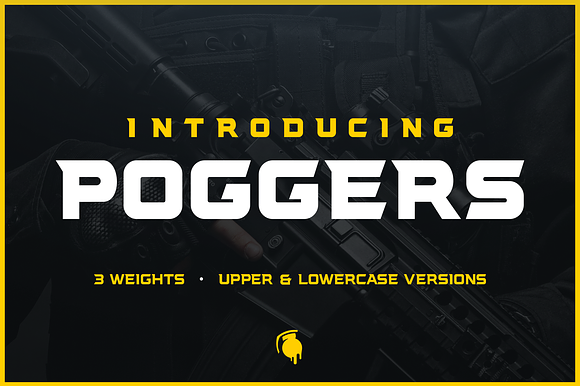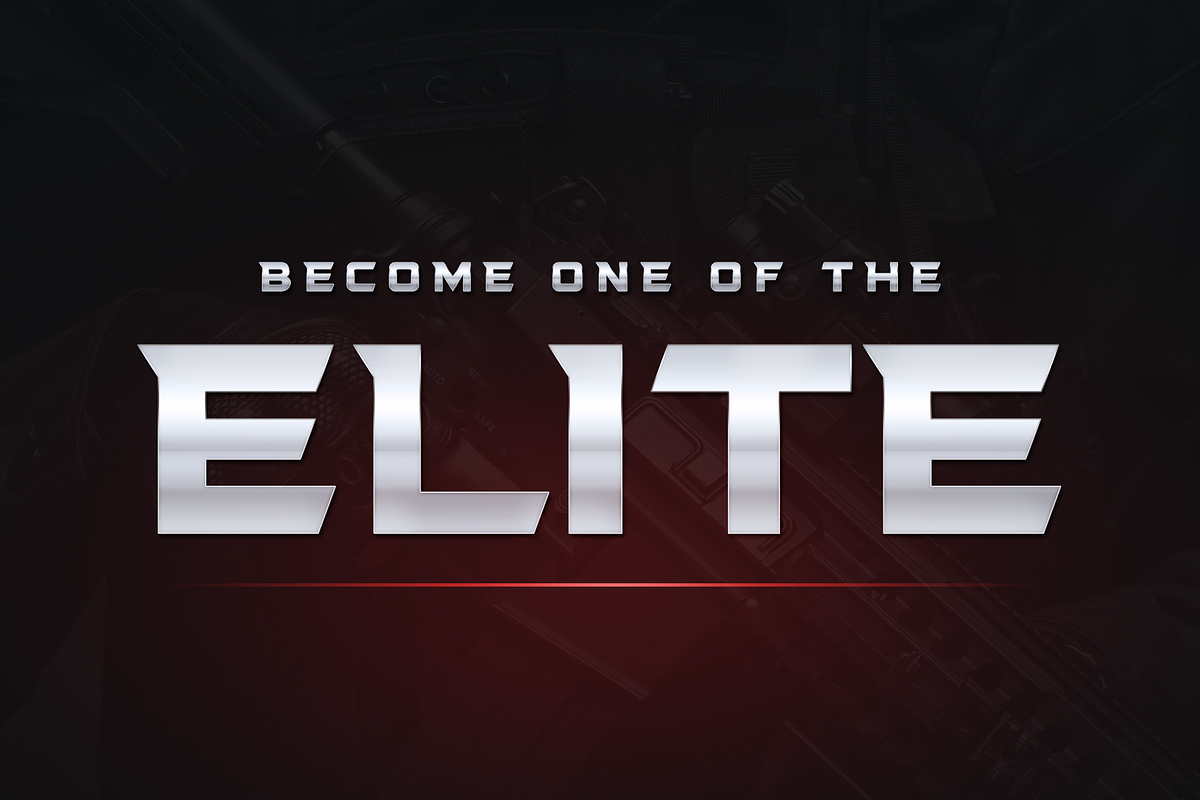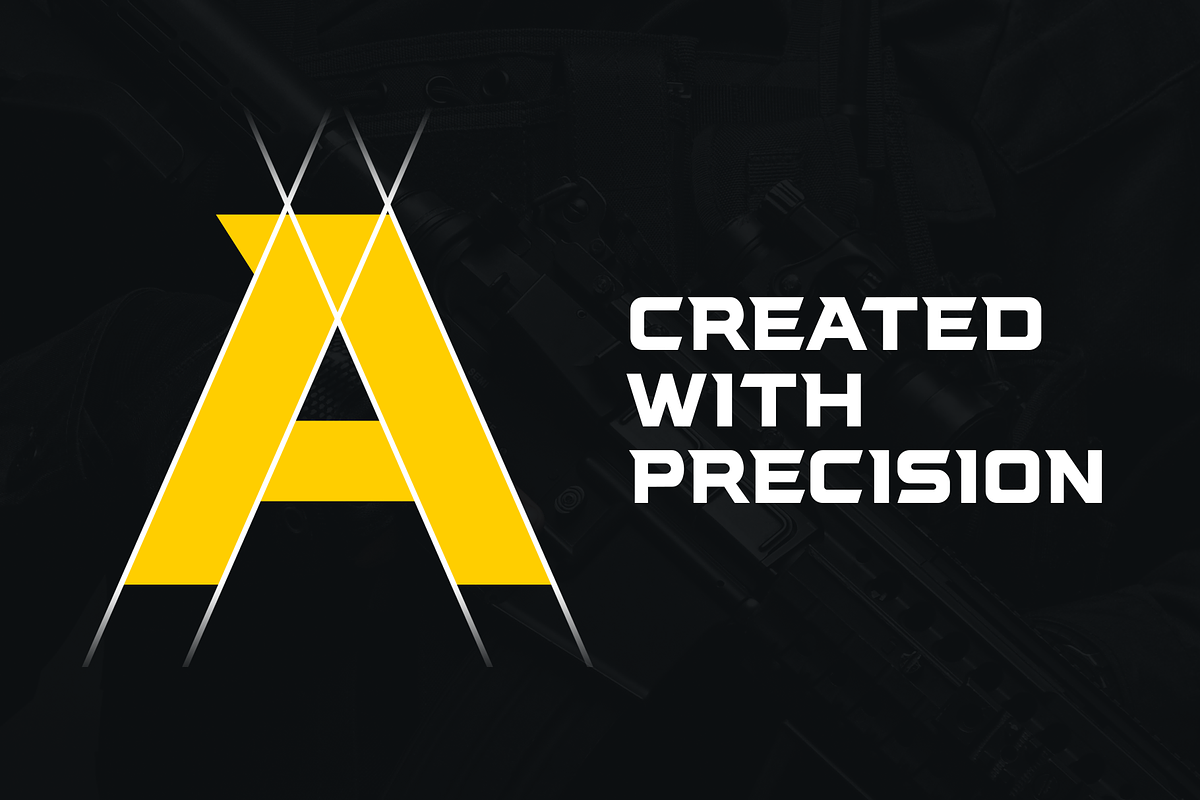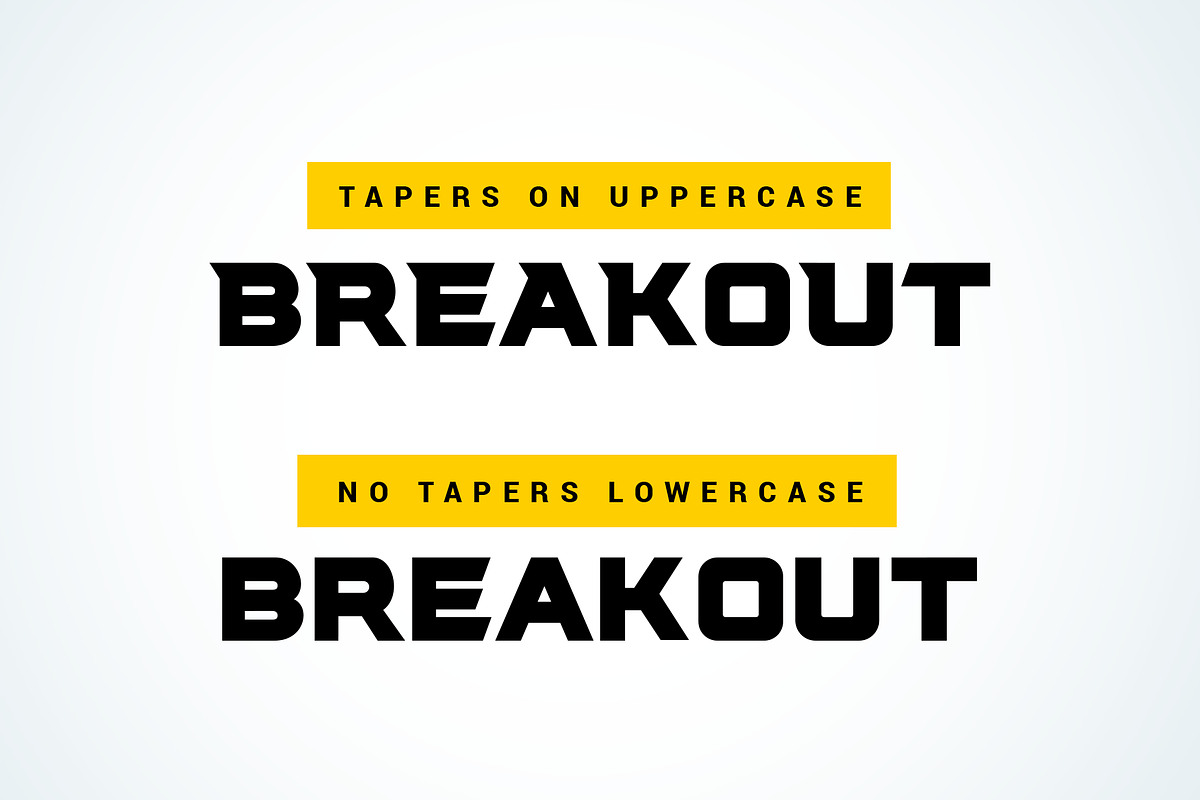
Poggers Font By Creative Grenade
Poggers is a sharp typeface designed by Creative Grenade to bring an intense impact to your next project. Designed with precision, Poggers Gaming Font includes:
Uppercase features the tapers for a sharp look. Lowercase removes tapers for a clean style. Combine these font styles to fit your project needs.
Poggers is a sharp font, perfect for any epic project including:
YouTube, Twitch, Facebook Streaming